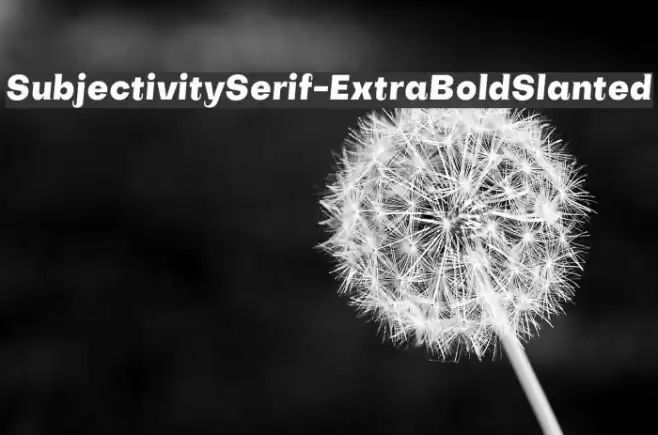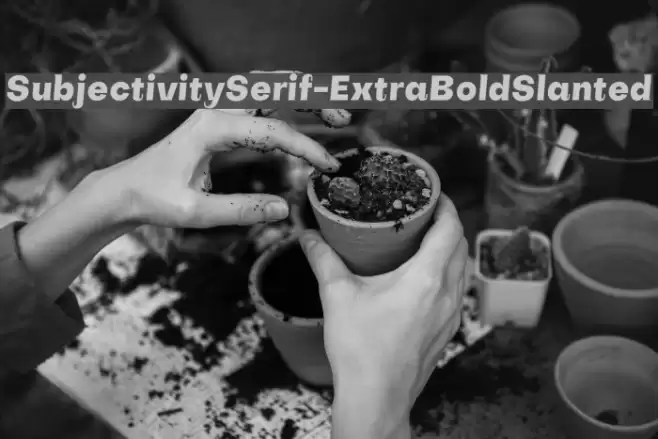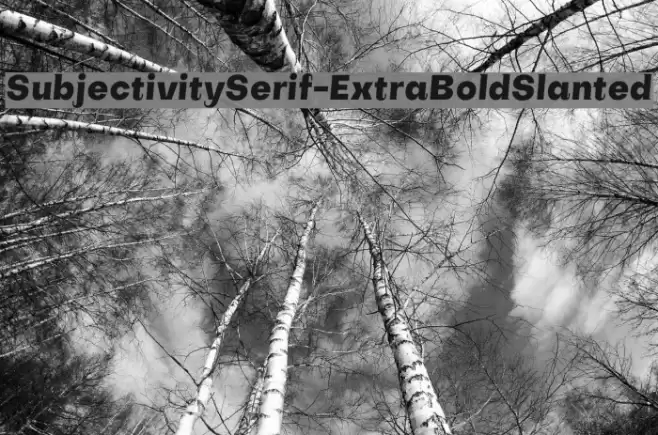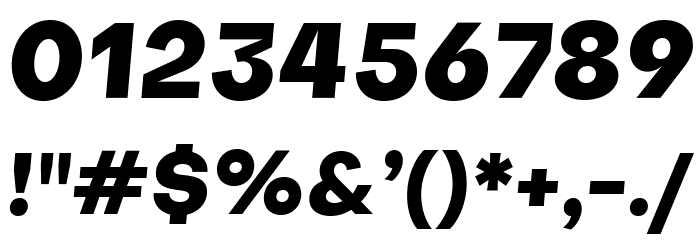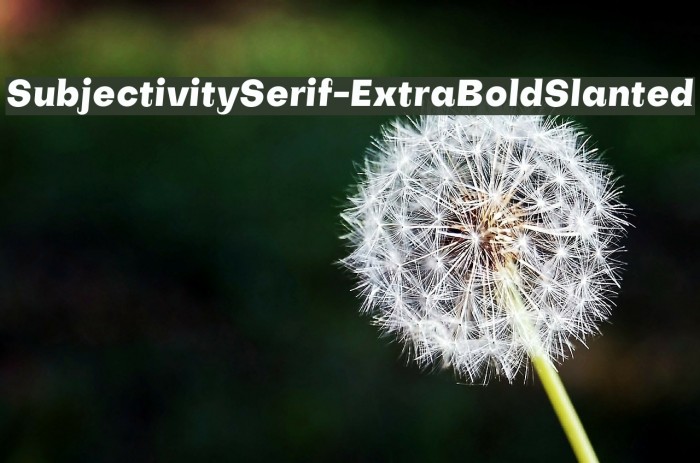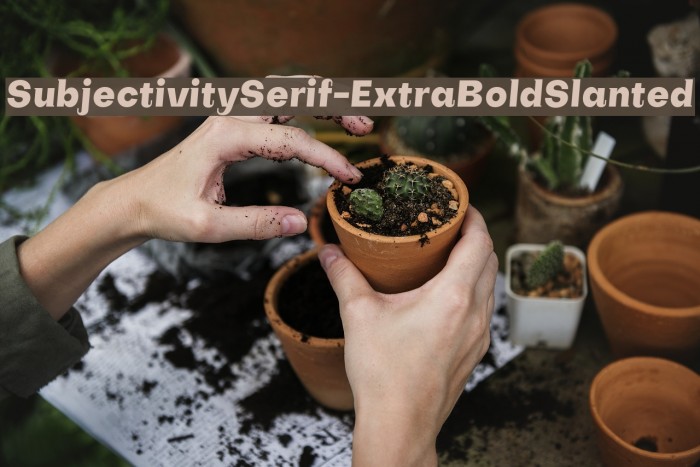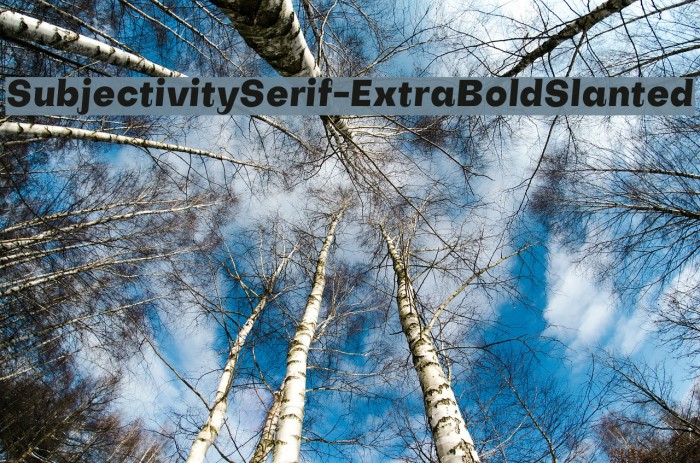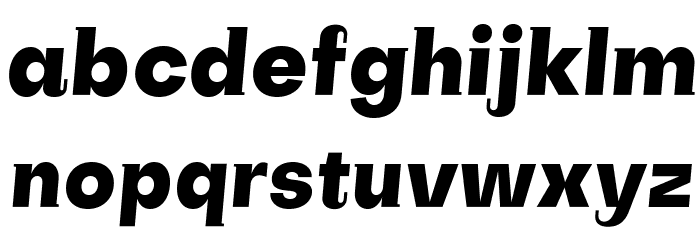
SubjectivitySerif-ExtraBoldSlanted Font
SubjectivitySerif-ExtraBoldSlanted Description
This font exhibits a bold and assertive style with a strong presence. The characters are extra bold and slightly slanted, giving them a dynamic and energetic appearance. The strokes are thick and consistent, providing a robust and impactful look. The uppercase and lowercase letters maintain a uniform weight, enhancing readability and visual balance. The numerals and special characters are designed to match the boldness of the alphabet, ensuring a cohesive appearance across all text. This font's slanted style adds a sense of motion and modernity, making it suitable for attention-grabbing designs.
A bold, slanted font with thick strokes and a dynamic style from Uncategorized fonts.
- Proposed Projects: Ideal for headlines, posters, branding, and advertising where a strong, impactful presence is needed.